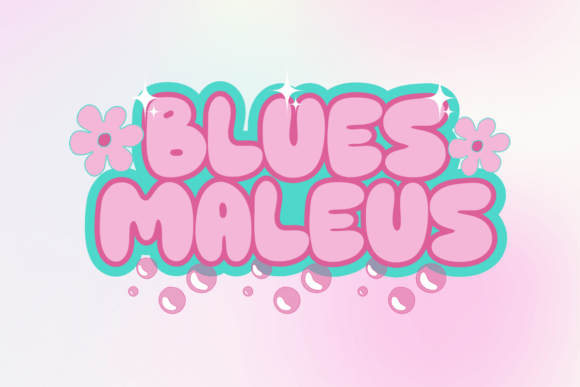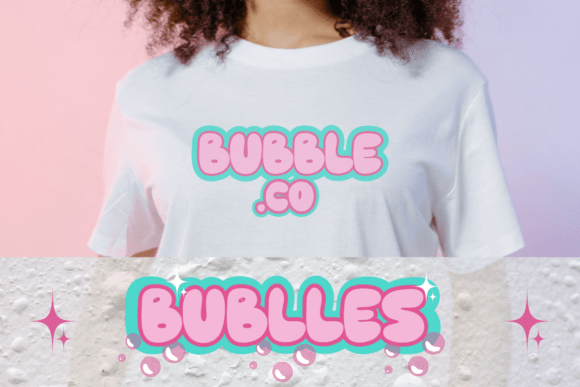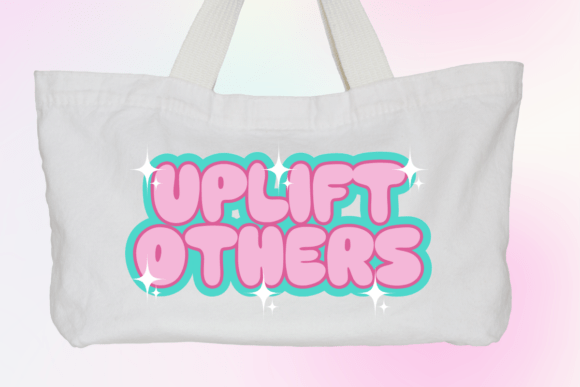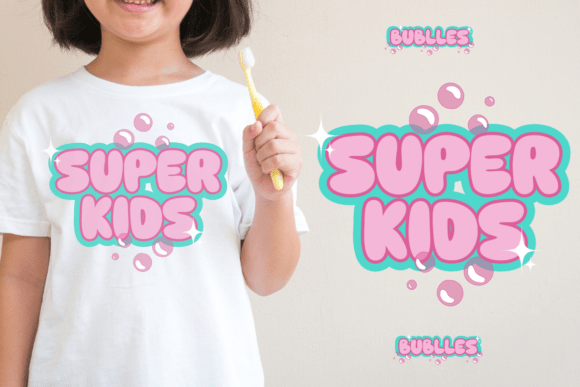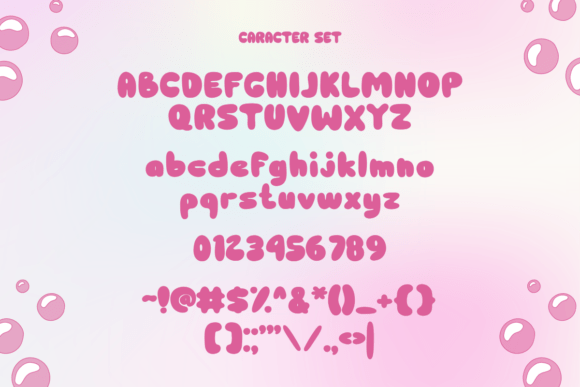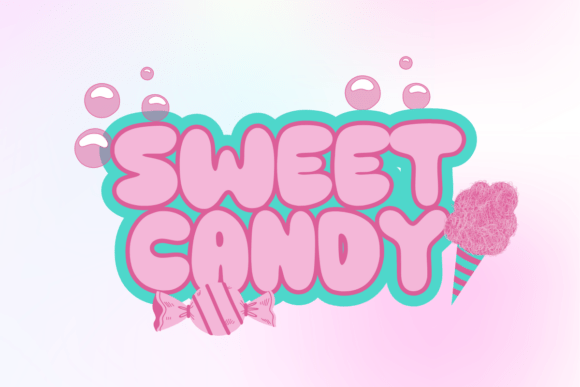
Bublles Font: Add a Playful Touch to Your Designs
Are you looking for a font that can add a whimsical and cheerful touch to your designs? Look no further than Bublles Font, a cute and playful retro bubble style font that’s perfect for children’s designs, playful branding, cute stationery, fun logos, and more. In this article, we’ll explore the features and benefits of Bublles Font, and show you how to use it to take your designs to the next level.
What is Bublles Font?
Bublles Font is a unique and eye-catching font that’s inspired by the classic bubble style fonts of the past. Its soft, rounded letters evoke a sense of joy and nostalgia, making it perfect for designs that need a playful and cheerful touch. The font is designed to be highly legible and versatile, making it suitable for a wide range of applications, from children’s books and educational materials to branding and marketing campaigns.
Key Features of Bublles Font
- Cute and Playful Design: Bublles Font features a unique and playful design that’s sure to capture the attention of your audience. Its soft, rounded letters are perfect for designs that need a whimsical and cheerful touch.
- Retro Bubble Style: The font is inspired by the classic bubble style fonts of the past, giving it a nostalgic feel that’s perfect for designs that need a retro touch.
- Highly Legible: Bublles Font is designed to be highly legible, making it perfect for designs that need to communicate a message clearly and effectively.
- Versatile: The font is suitable for a wide range of applications, from children’s books and educational materials to branding and marketing campaigns.
Uses for Bublles Font
Bublles Font is a versatile font that can be used in a wide range of applications, including:
- Children’s Designs: The font is perfect for children’s books, educational materials, and other designs that need a playful and cheerful touch.
- Playful Branding: Bublles Font is ideal for brands that want to convey a sense of fun and playfulness. It’s perfect for logos, packaging, and marketing campaigns.
- Cute Stationery: The font is perfect for designing cute and playful stationery, including greeting cards, invitations, and other paper products.
- Fun Logos: Bublles Font is ideal for designing fun and playful logos that need to capture the attention of your audience.
Tips for Using Bublles Font
Here are some tips for using Bublles Font in your designs:
- Use it with Color: Bublles Font looks great when paired with bright and bold colors. Use it with color to add a playful and cheerful touch to your designs.
- Experiment with Sizes: The font is highly legible, even at small sizes. Experiment with different sizes to find the one that works best for your design.
- Pair it with Other Fonts: Bublles Font pairs well with other fonts, including serif and sans-serif fonts. Experiment with different font combinations to find the one that works best for your design.
Bublles Font is a unique and eye-catching font that’s perfect for designs that need a playful and cheerful touch. Its soft, rounded letters evoke a sense of joy and nostalgia, making it perfect for children’s designs, playful branding, cute stationery, fun logos, and more. With its highly legible design and versatile nature, Bublles Font is a great addition to any designer’s toolkit.
In conclusion, Bublles Font is a great font that’s perfect for designers and crafters who want to add a playful and cheerful touch to their designs. Its unique and eye-catching design, highly legible nature, and versatile applications make it a great addition to any designer’s toolkit.